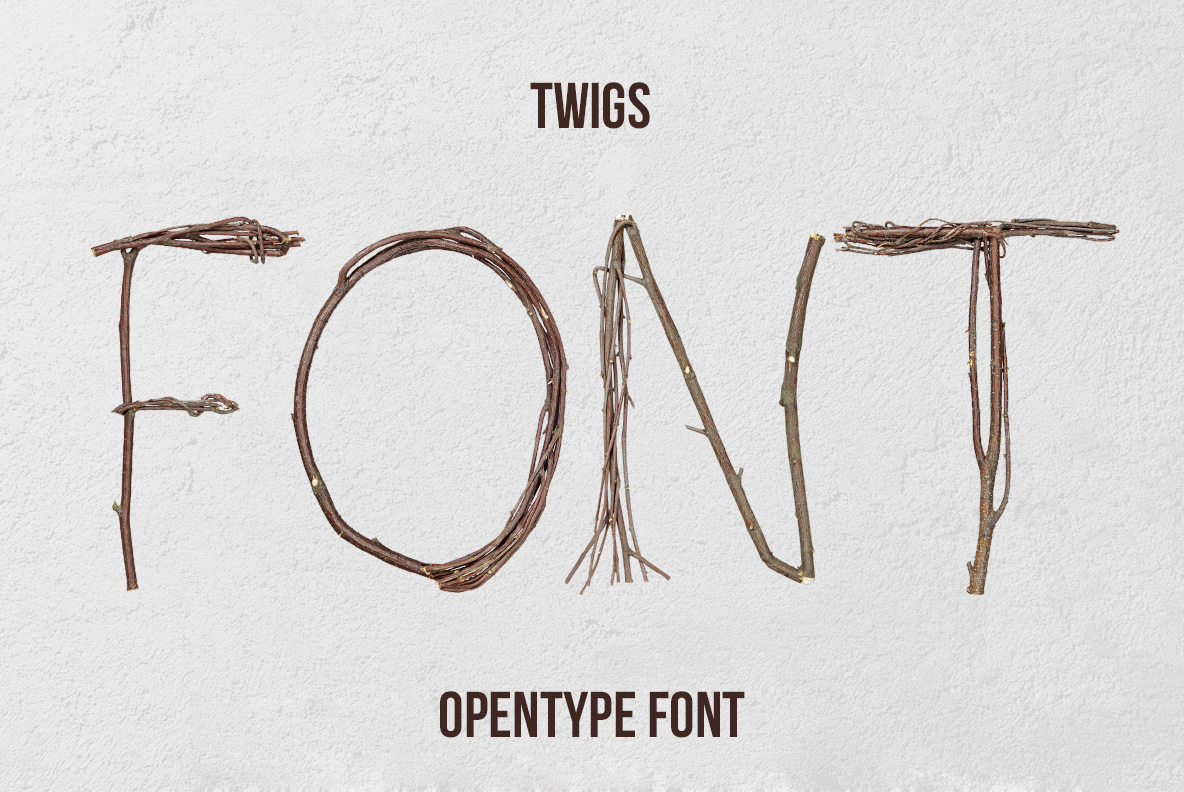
Twigs Brown Font – Handmade Brown Twig Letters
Twigs Brown Font creates airy letterforms from thin brown branches arranged into recognizable characters. Layered twigs and irregular natural lines bring an authentic handcrafted quality to woodland, ecological and nature-inspired design projects.